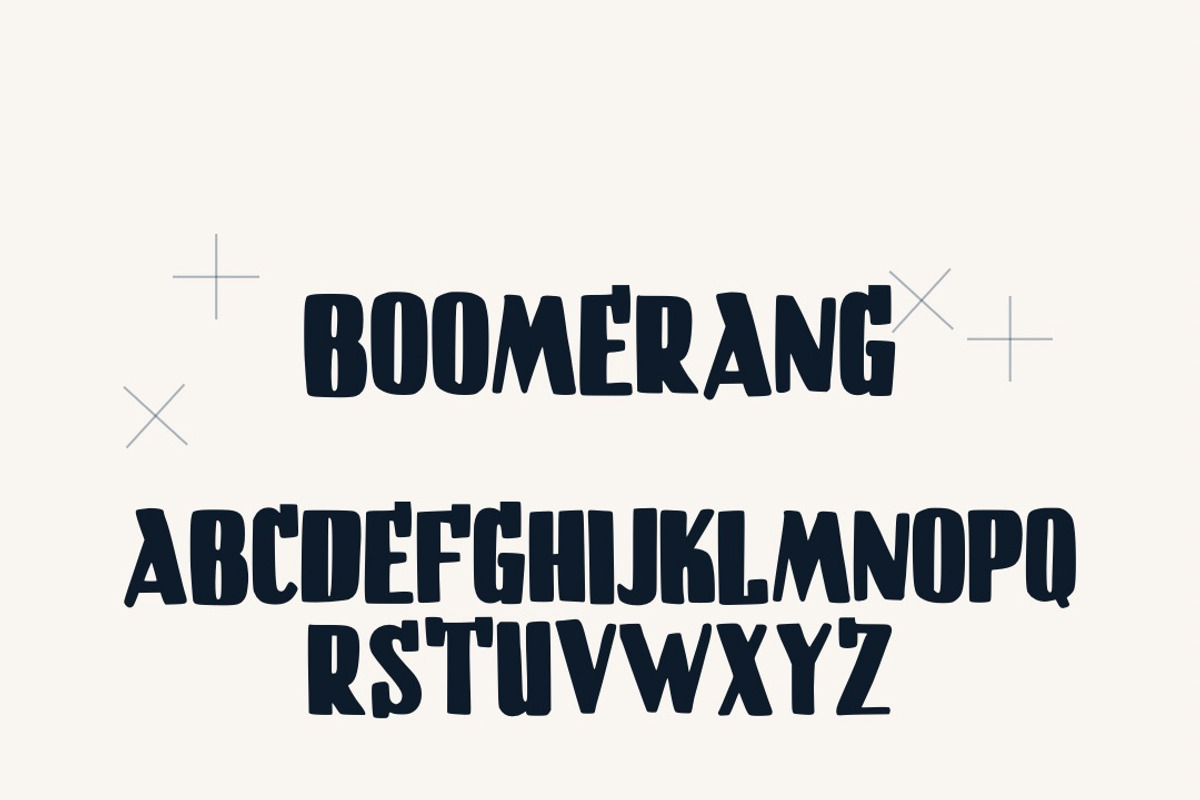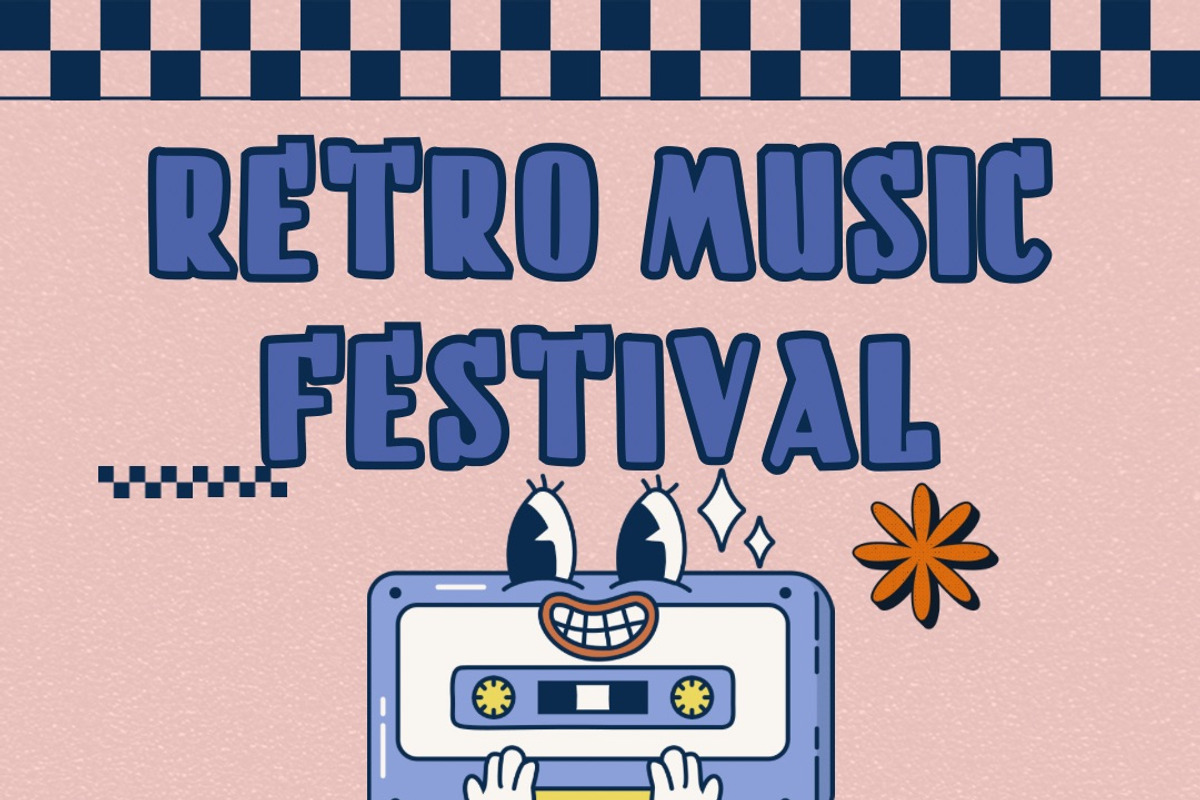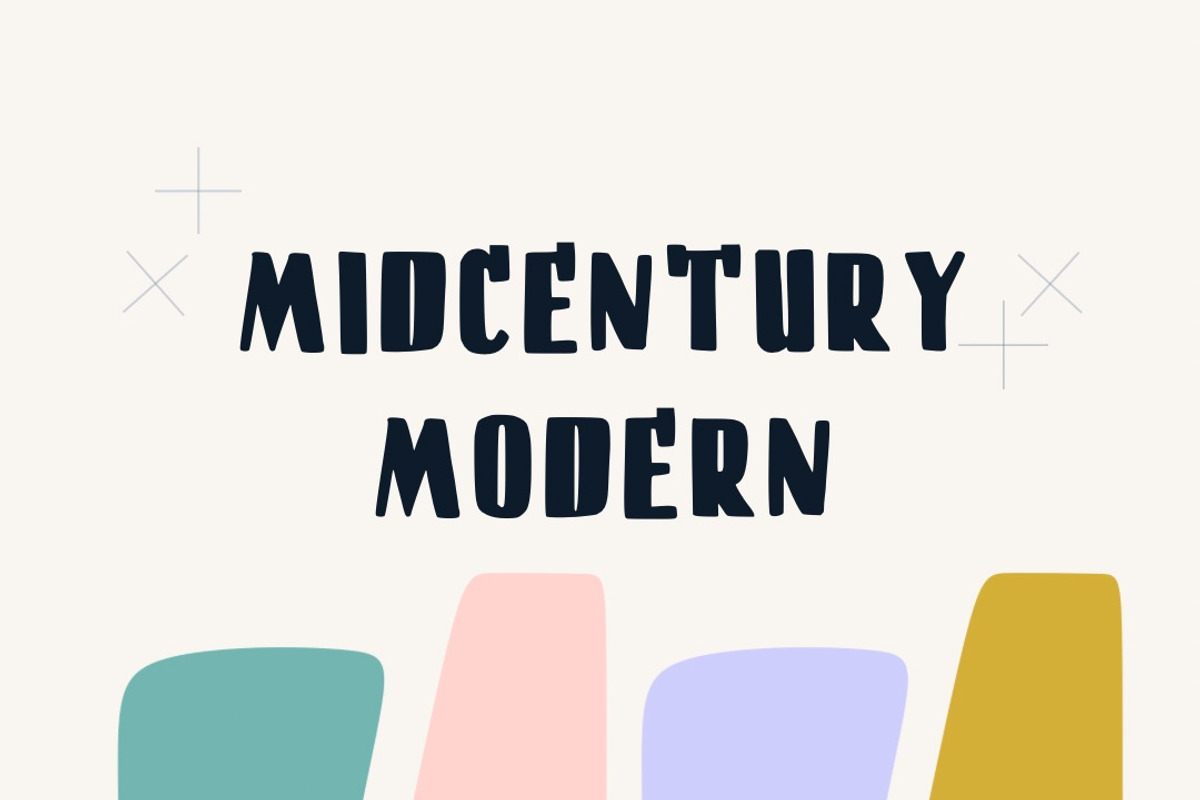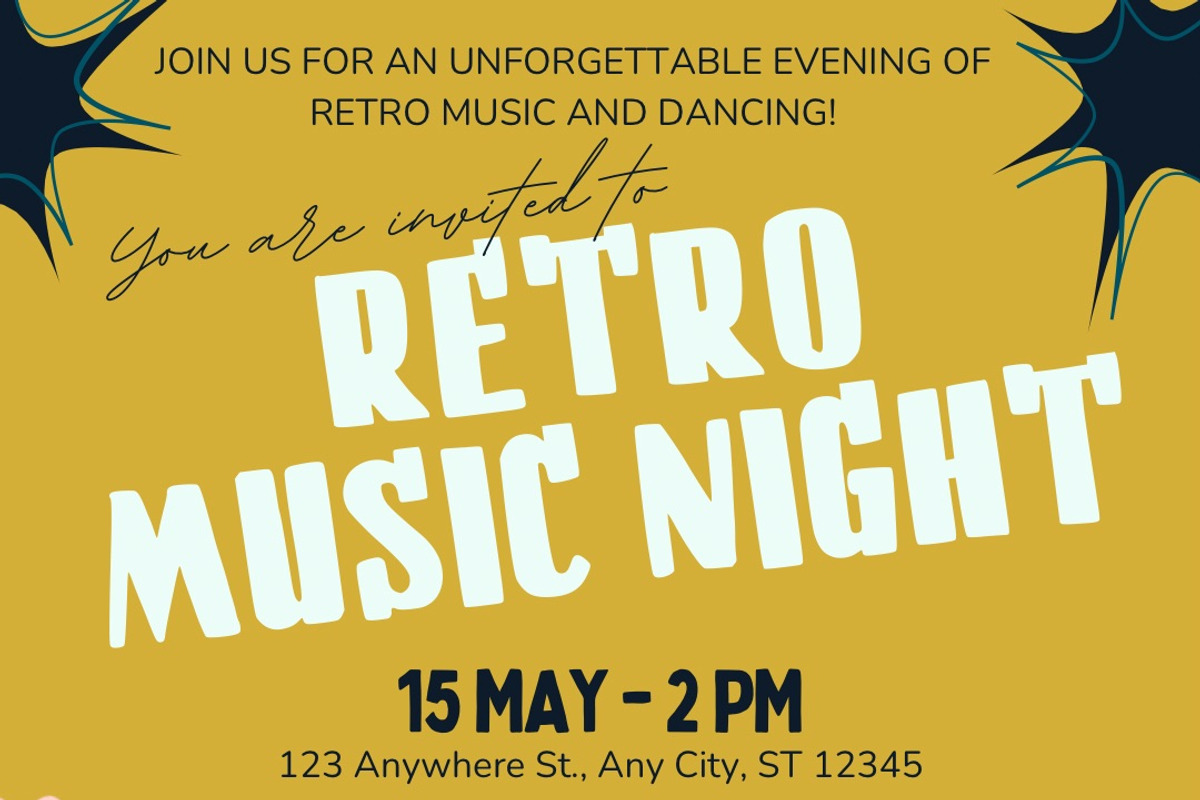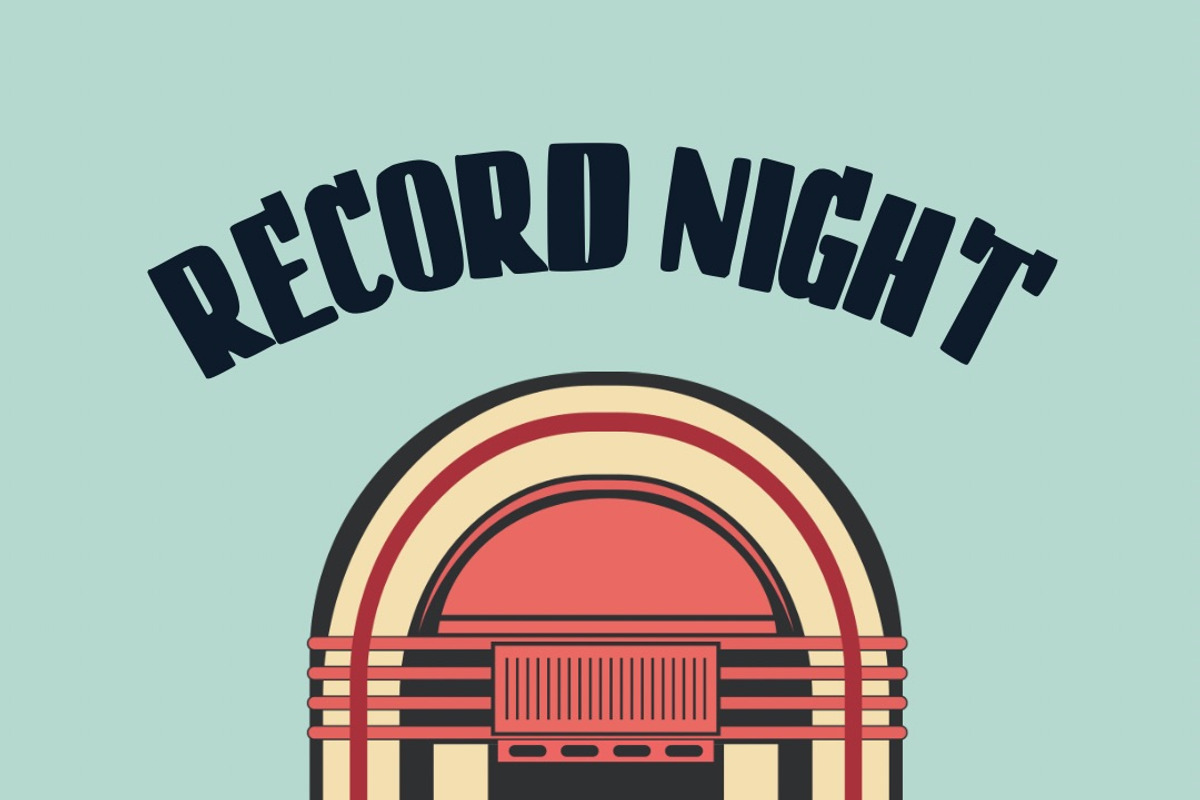
JETSTREAM - Midcentury Modern Font
Step back into the glamorous 1950s with this stunning ornate kitsch serif font! Perfect for capturing that authentic mid-century modern aesthetic with decorative flourishes and bold character that defined the era. 27 bonus midcentury illustrations with transparent backgrounds included!